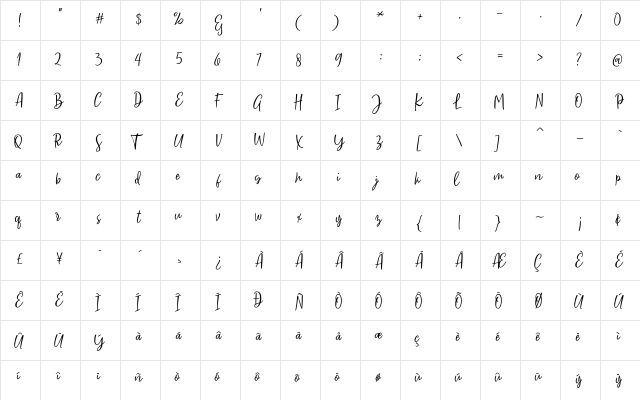
Sarmilla Script Regular
| Foundry | PointlabSTD_FERDIANSYAH |
| Designer | PointlabSTD_FERDIANSYAH |
Design Context for Sarmilla Script Typeface
Sarmilla Script brings a calligraphic fluidity to the page — its connecting strokes and expressive curves give it an unmistakably human quality.
Font Pairing: Combine Sarmilla Script with a simple geometric sans for maximum contrast — the tension between flowing curves and clean structure is a classic typographic pairing.
Pro Tip: Use Sarmilla Script for short runs of text — names, titles, or taglines. Extended body copy in script faces tires the eye quickly.